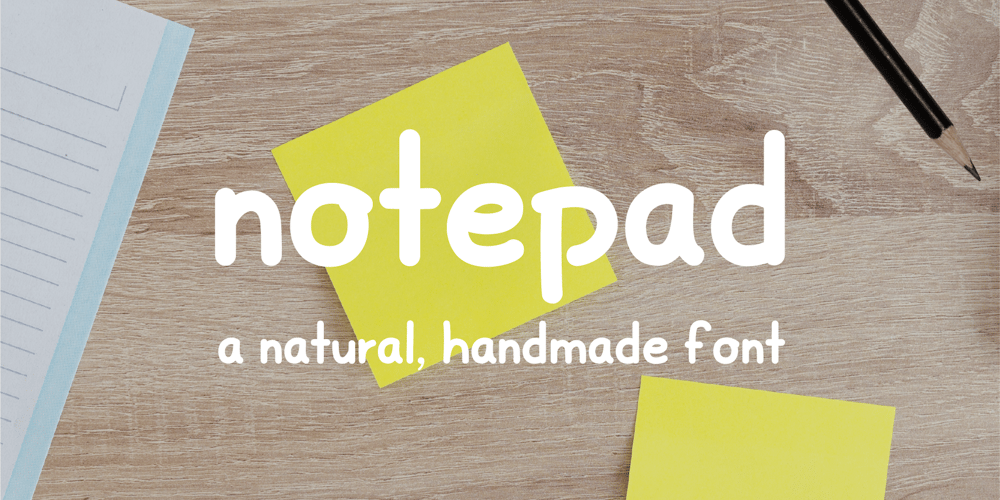
Notepad Font Family was designed by Jess J and published by Type Avenue. Notepad contains 1 styles and family package options. This font was made to be clean and legible. It’s versatile nature makes it perfect for note taking, posters, or even for long form copy.